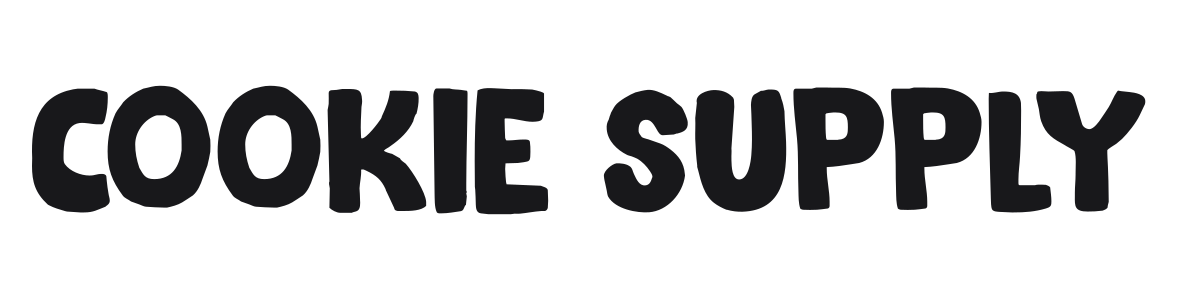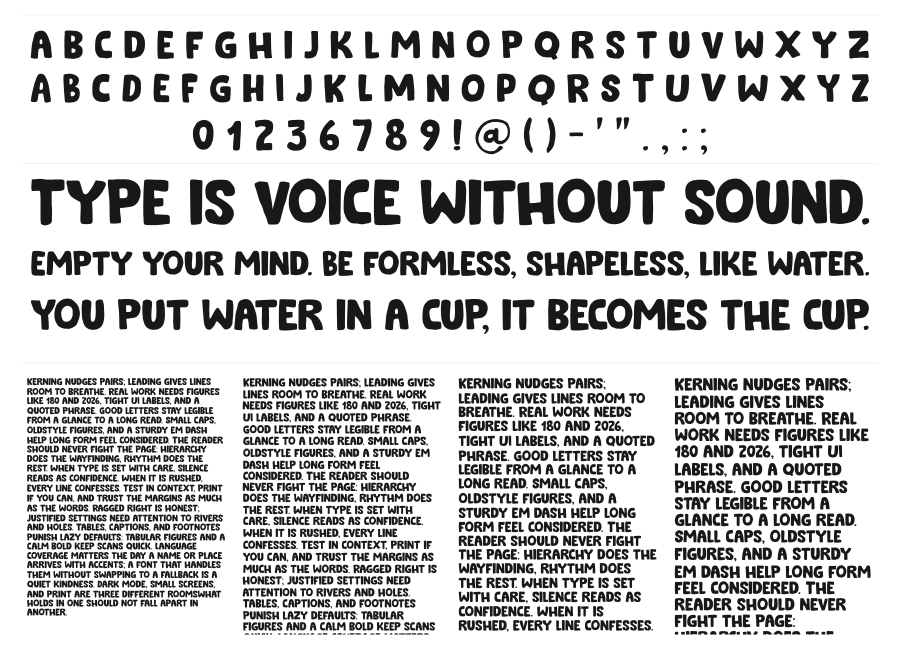
Cookie Supply
Cookie Supply is a chunky, hand-drawn bold sans with rounded terminals and an irresistibly informal energy. The slightly irregular construction keeps it from feeling mechanical, landing somewhere between comic lettering and hand-painted signage. Strong choice for food packaging, children's content, or any headline that needs to feel approachable and fun.